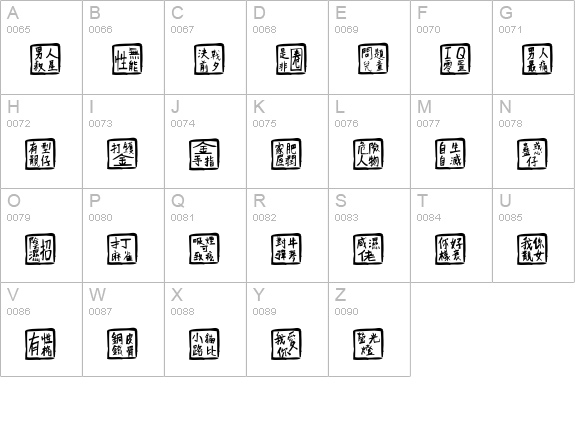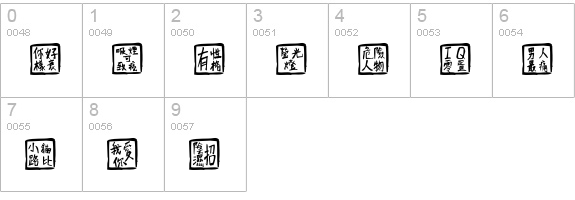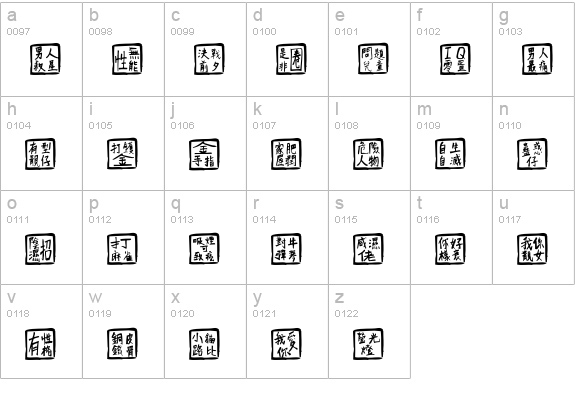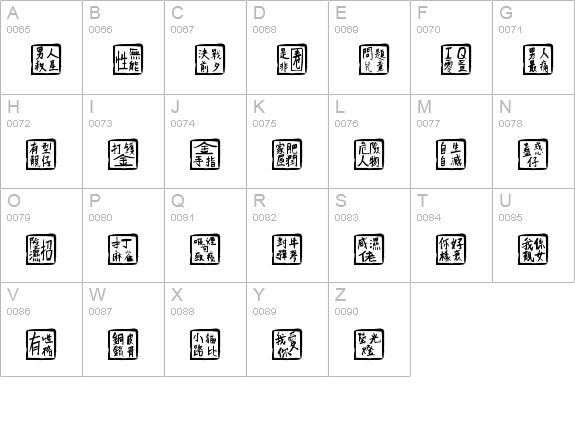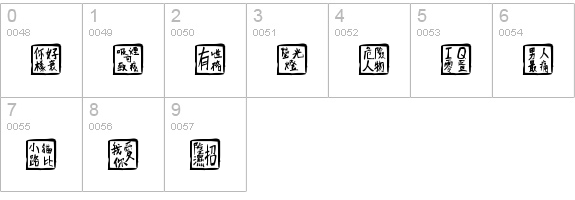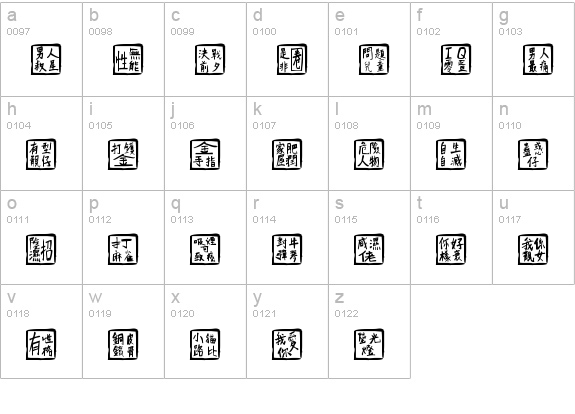
ChineseWhisper Font Details
ChineseWhisper font is a stunning display typeface that exudes elegance and sophistication. With its intricate Chinese-inspired characters and intricate details, this font is perfect for adding a touch of exotic charm to your designs. The flowing strokes and unique shapes of each character make ChineseWhisper font truly stand out. Best of all, ChineseWhisper font is available for free download at FontsMarket.com. This means you can easily access and use this beautiful font in your projects without any cost. Whether you're creating invitations, logos, or posters, ChineseWhisper font will surely elevate your designs to the next level. Don't miss out on this amazing opportunity to enhance your creative work with the captivating beauty of ChineseWhisper font. Download it now and let your designs speak in whispers of elegance and style.